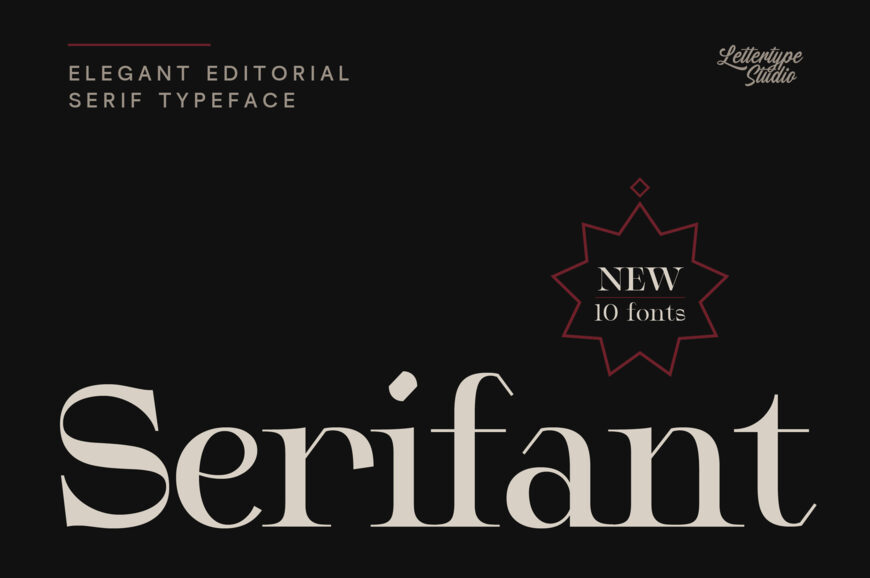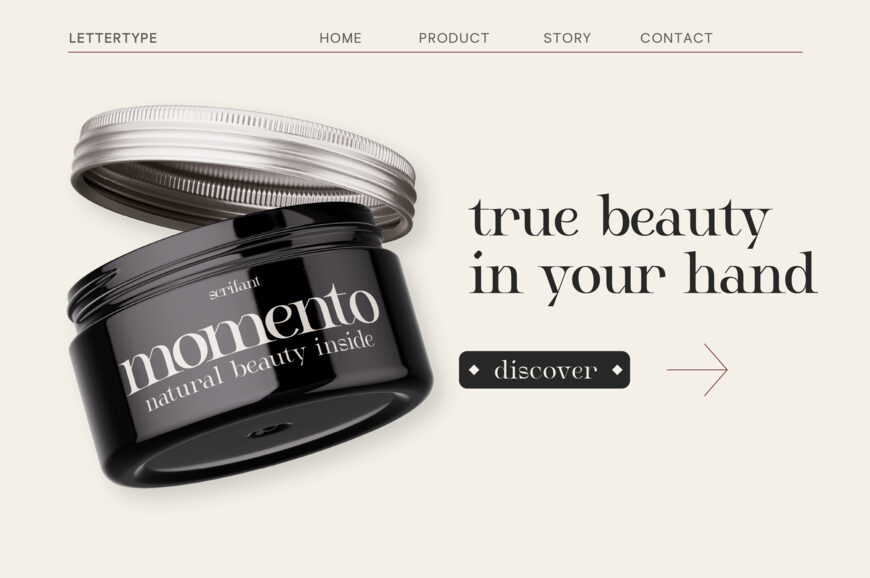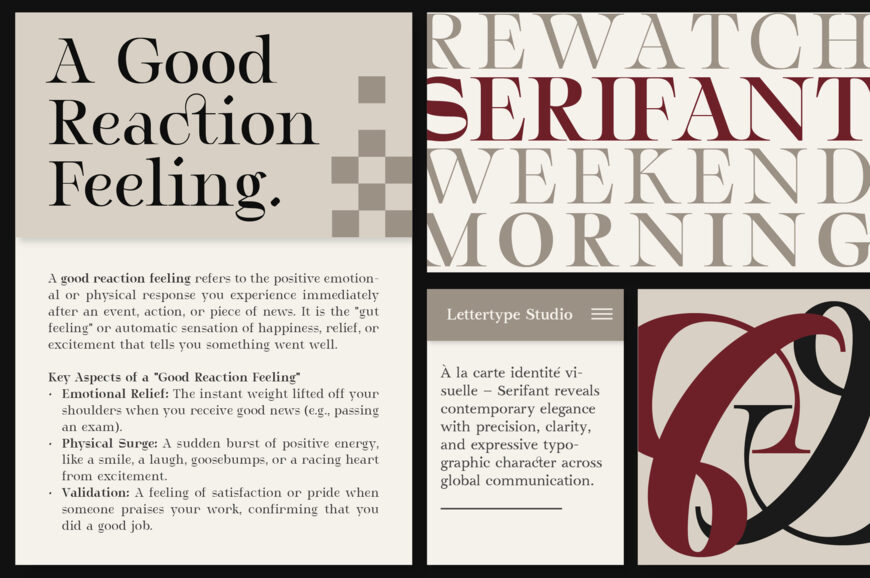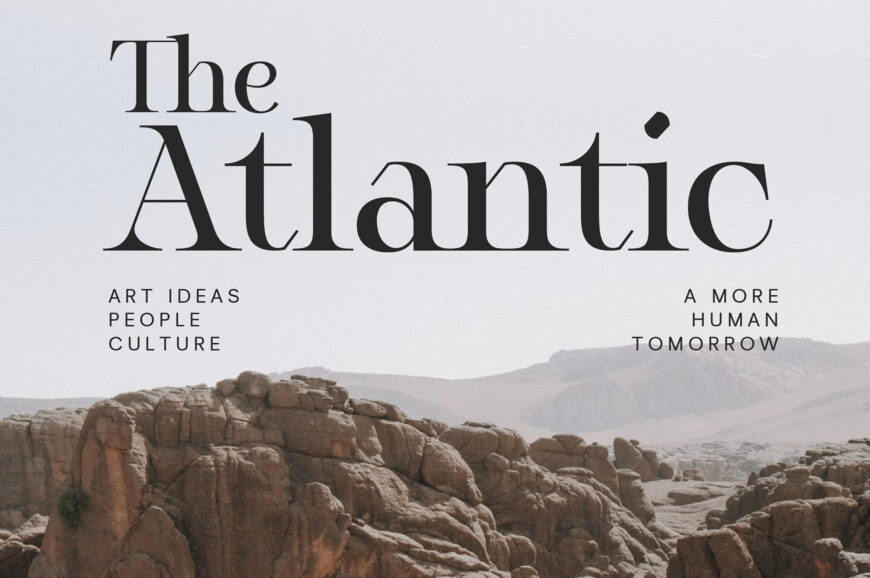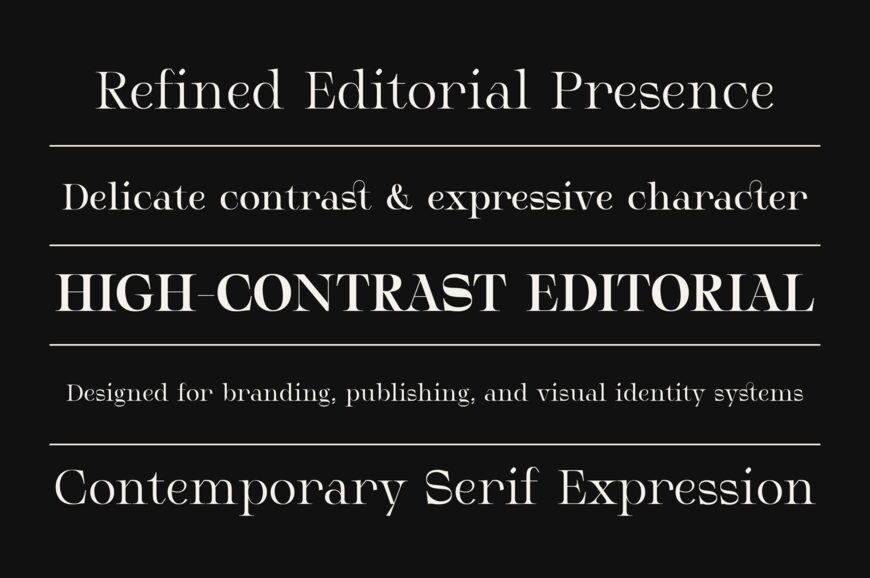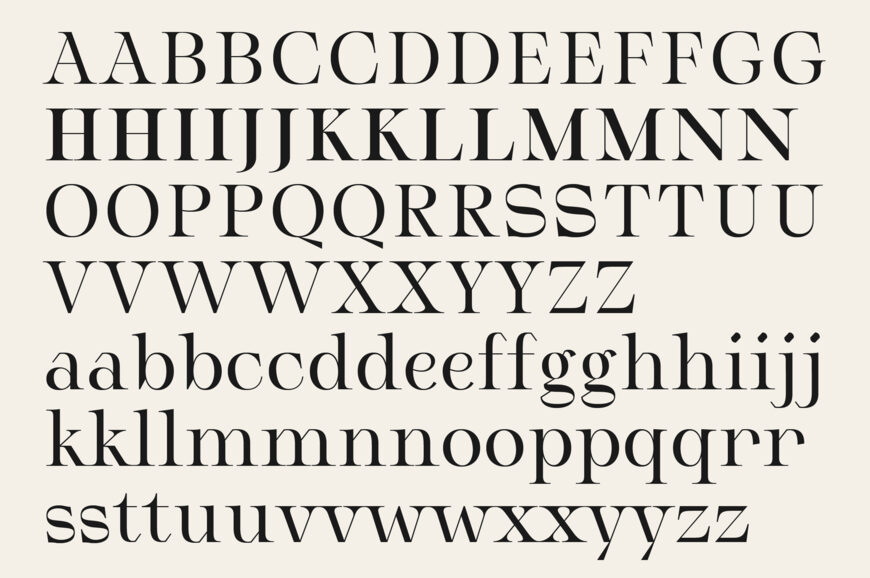
Serifant is a contemporary high-contrast editorial serif that balances delicate hairlines, sharp serif details, and refined proportions with a confident modern character. Its sophisticated contrast creates an elegant visual rhythm that feels equally natural in fashion editorials, luxury identities, beauty campaigns, and contemporary publishing.
The family includes five weights from Light to Bold, providing a controlled range from delicate and graceful typography to stronger display statements. Serifant is complemented by an expressive Alt variation featuring longer, more pronounced serif details and extended serif feet, giving designers an additional display voice when a more distinctive typographic presence is needed.